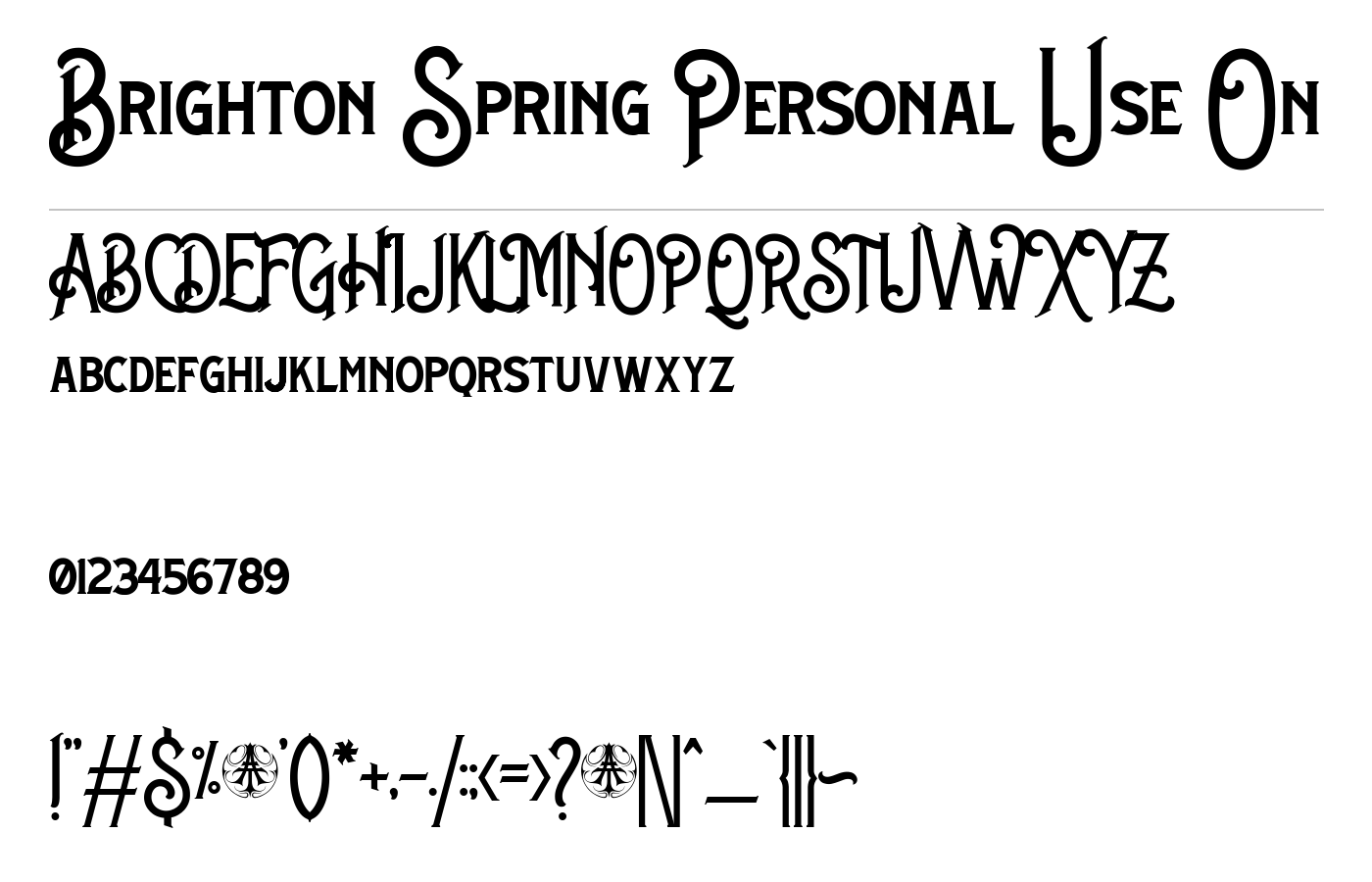
Brighton Spring Personal Use On is a decorative serif font with an elegant and vintage flair, featuring intricate swirls and flourish details that add a whimsical personality to its characters. Its strong contrast between thick and thin strokes, combined with tall, narrow letterforms and unique uppercase shapes, makes it ideal for distinctive headlines, logos, and branding where a touch of sophistication and artistry is desired. This font works best in creative projects that aim to evoke a nostalgic, luxurious, or playful mood.
Brighton Spring Personal Use On Font
About Brighton Spring Personal Use On Font